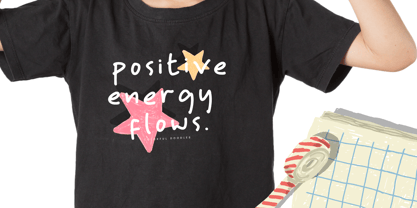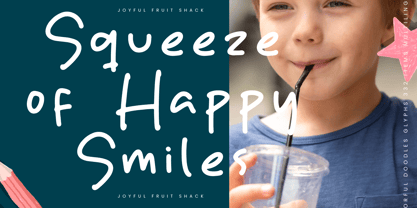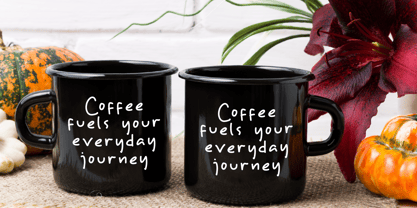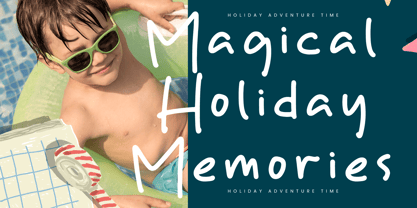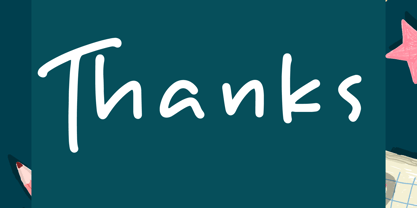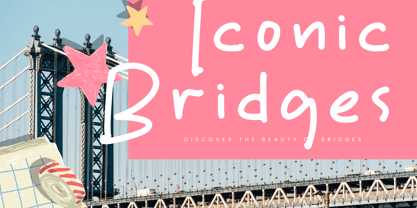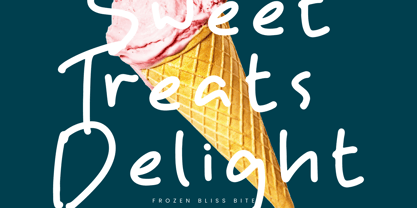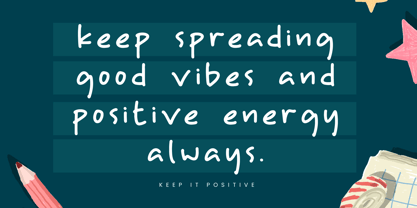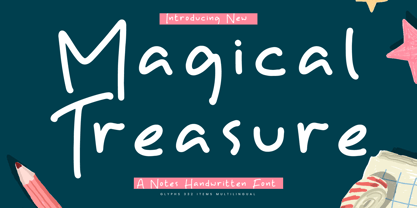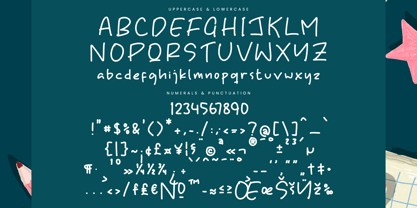
Magical Treasure
by Integritype
The Magical Treasure Font Family was designed by Dimas Alif Maulana and published by Integritype. Magical Treasure contains 2 styles and family package options. More about this family
Magical Treasure - A Notes Handwritten Font, from Integritype Studio, perfect for any project like: logos, branding projects, homewares designs, product packaging, mugs, quotes, posters, shopping bags, t-shirts, covers books, business cards, invitation cards, greeting cards, labels, photography, watermarks, special events and all your other luxury projects that require a premium taste.
Designers: Dimas Alif Maulana
Foundry: Integritype